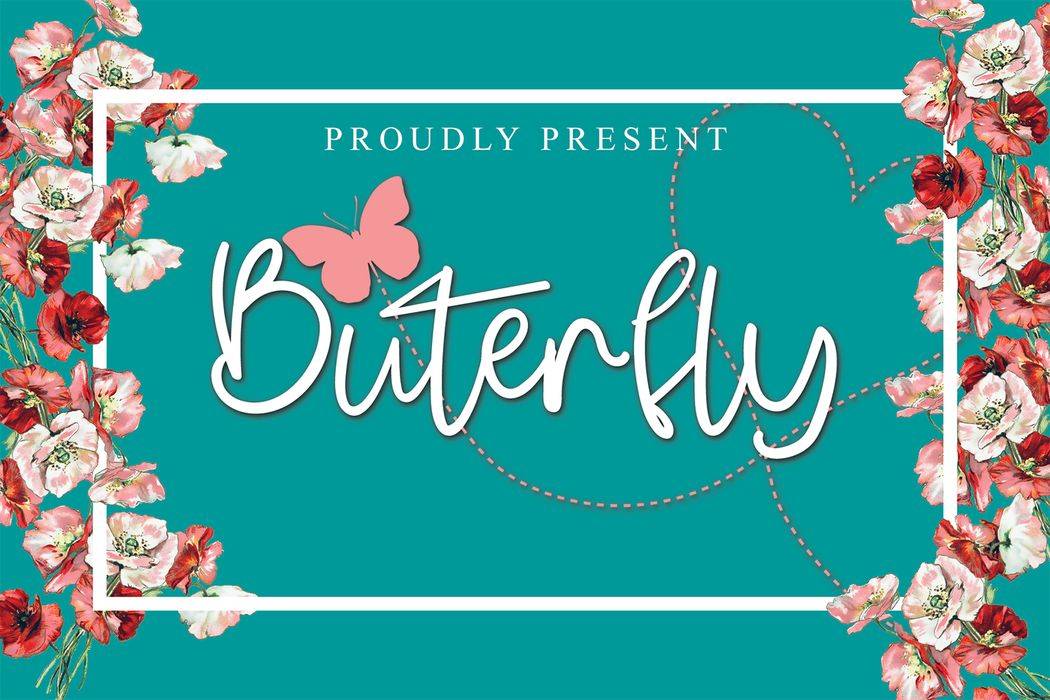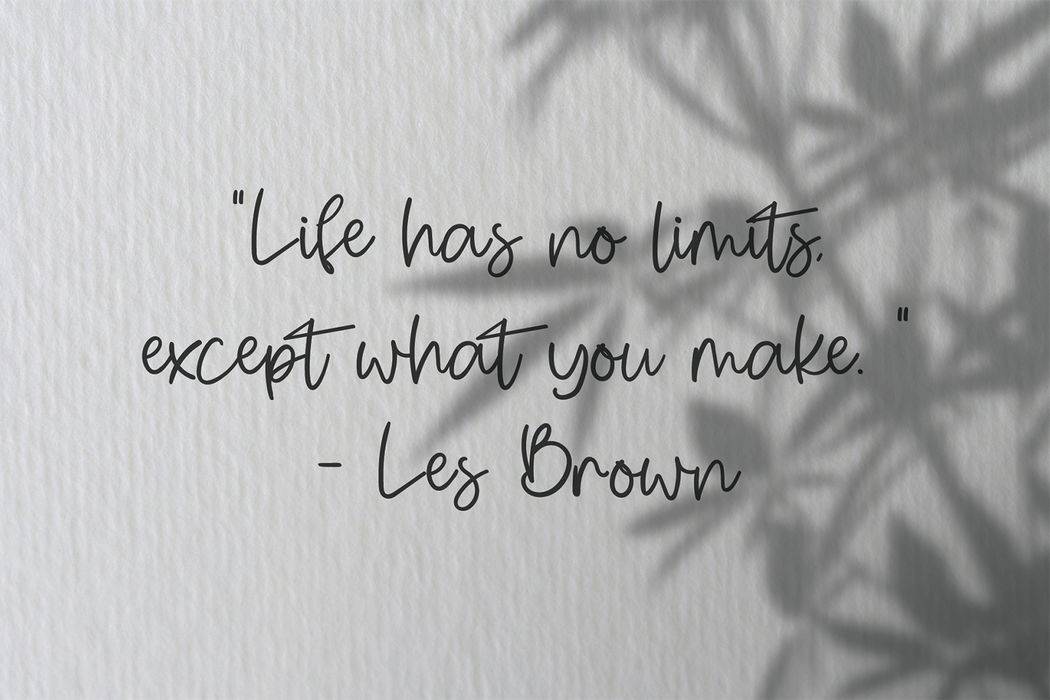
Buterfly is a playful and casual handwritten font with a light weight and loose, airy spacing that mimics natural penmanship. Its quirky, slightly uneven strokes and unique letterforms create a friendly and approachable feel, making it perfect for informal designs, personal branding, invitations, and creative projects that want to convey warmth and personality.
Buterfly Font
About Buterfly Font